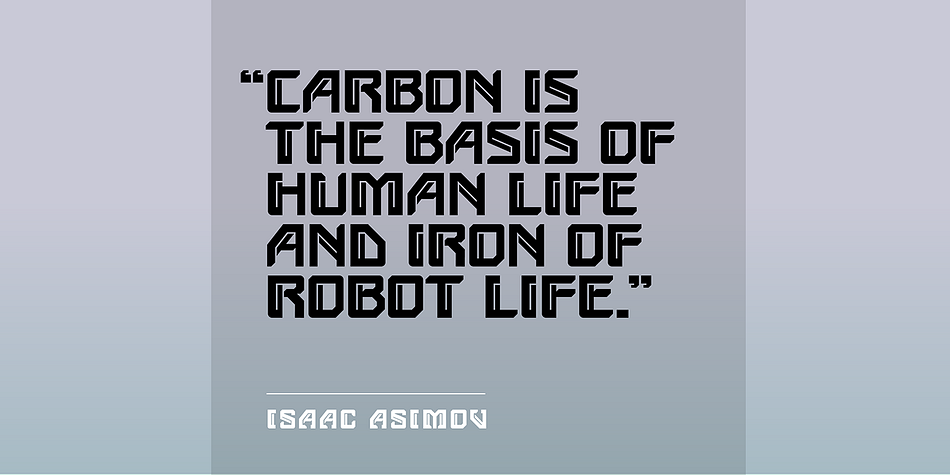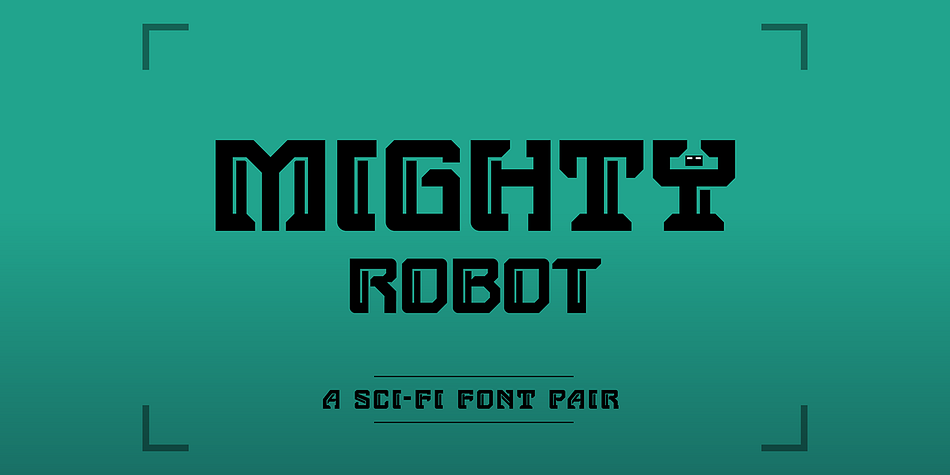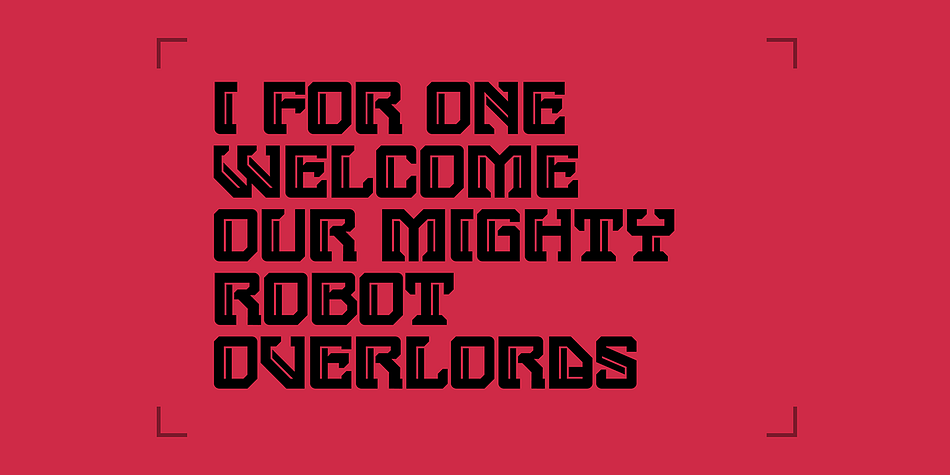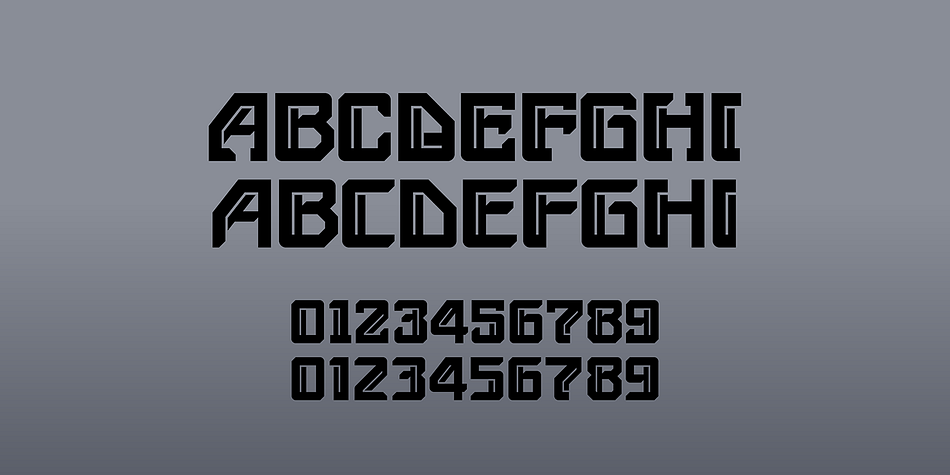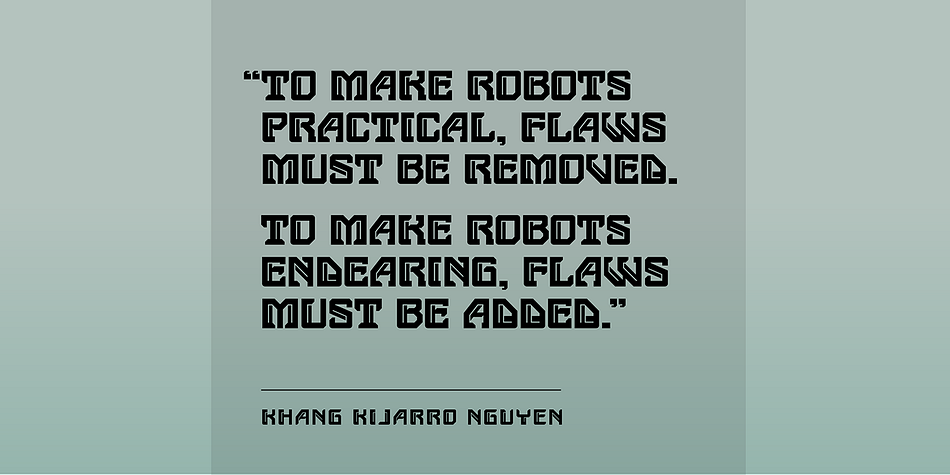
Designed by Craig Stainton, SB Mighty Robot is a novelty font family. This typeface has two styles and was published by SelfBuild Type Foundry.
A robotic display font that’s ready to take over the world.
• 2 Fonts: Regular and Sans versions.
• Each font contains between 240+ glyphs including accented characters and punctuation.
• Support for 88 languages.